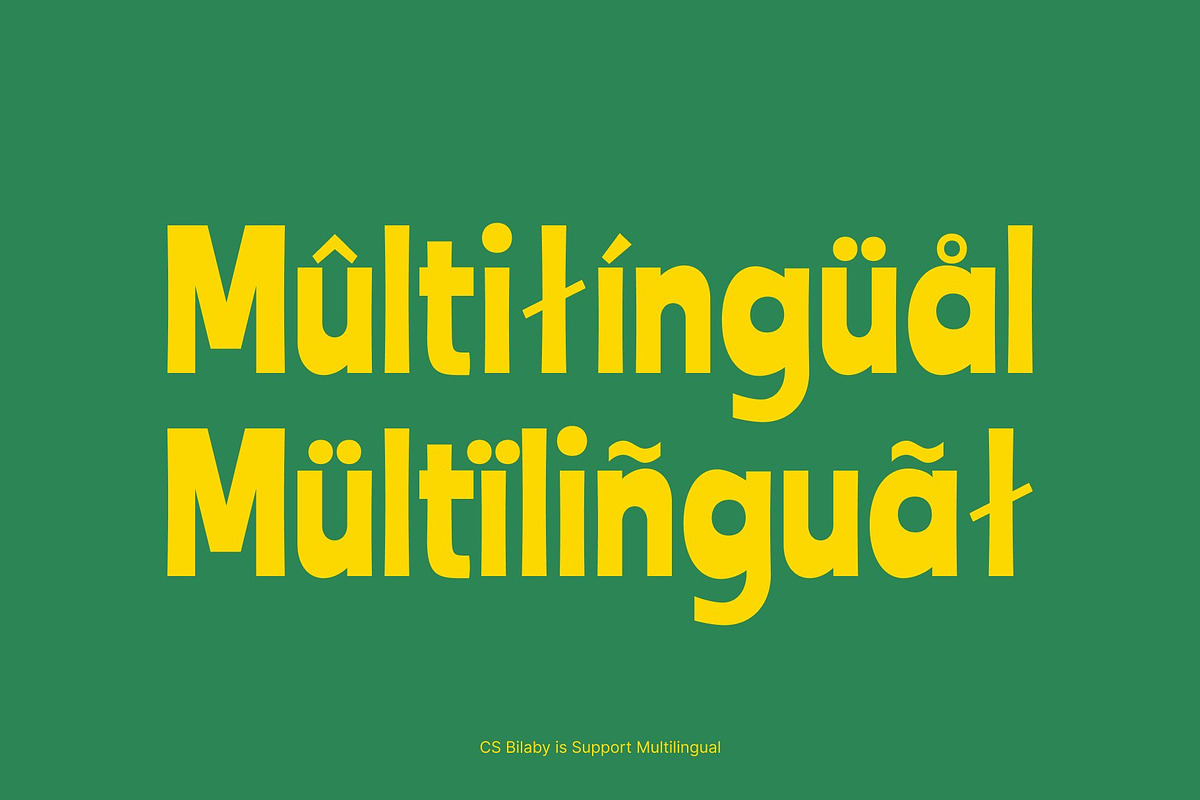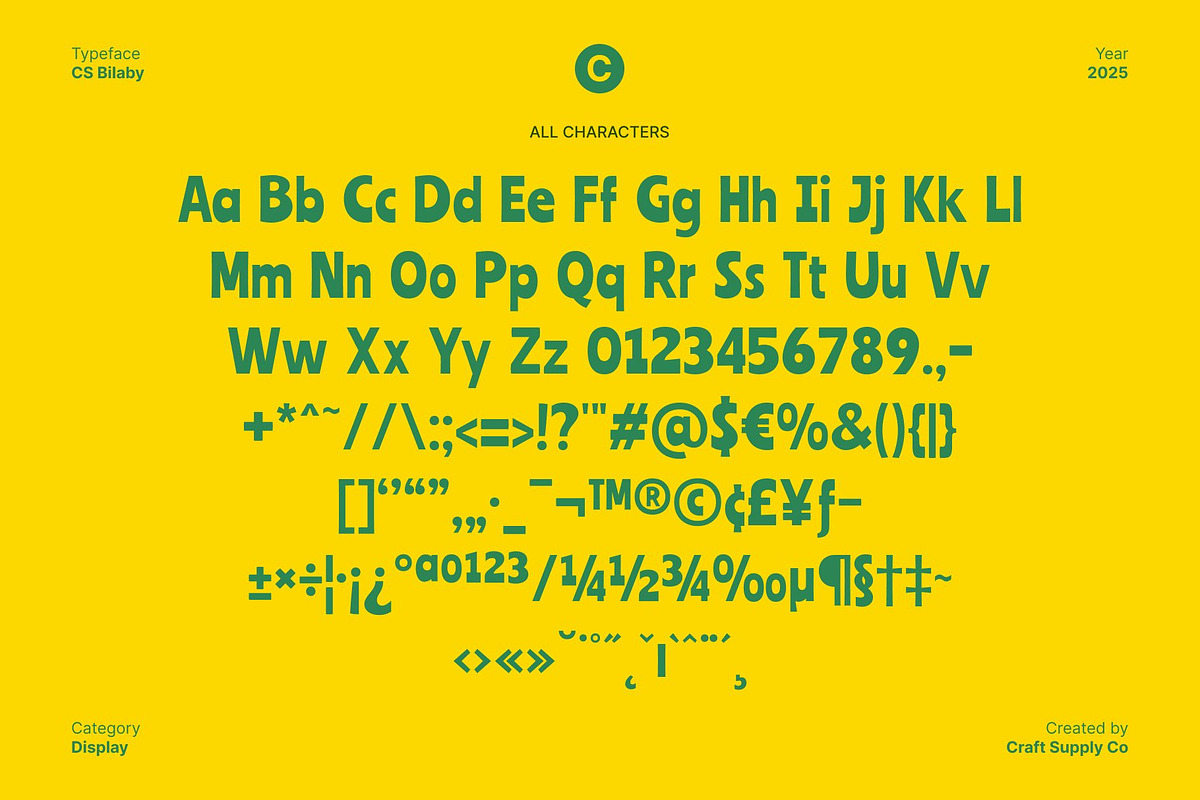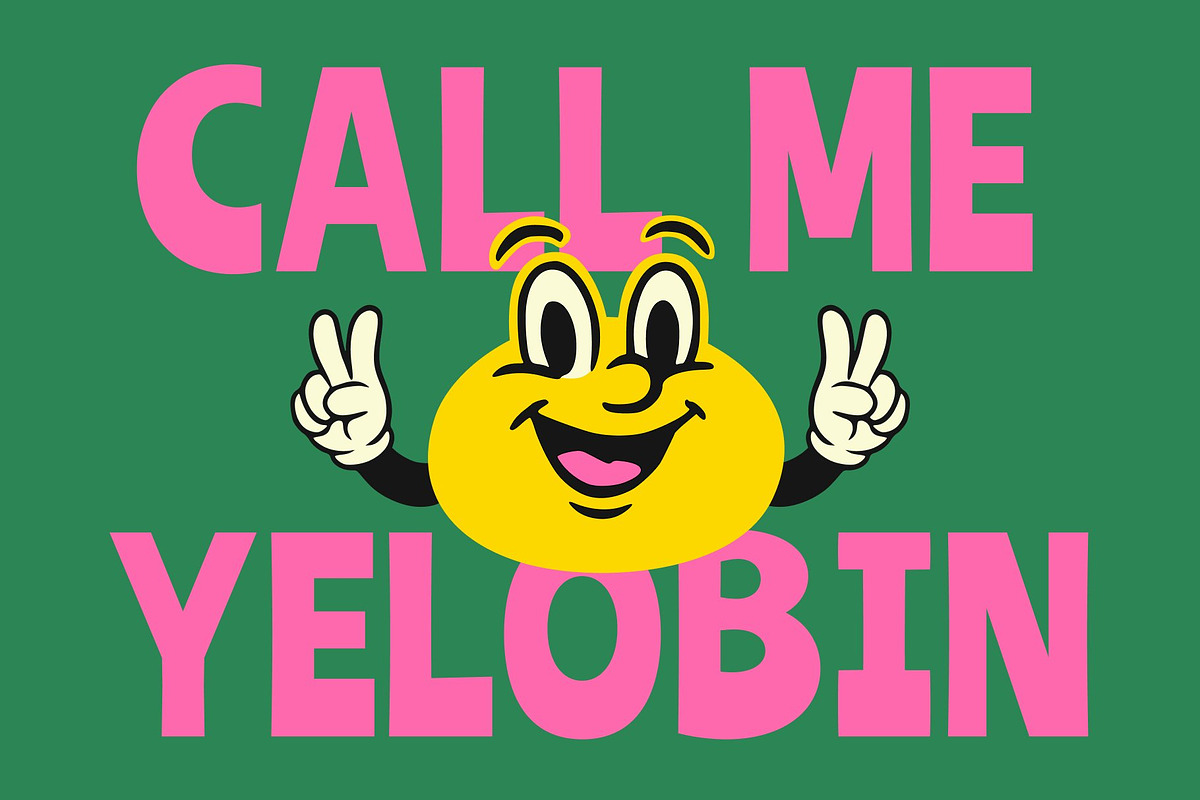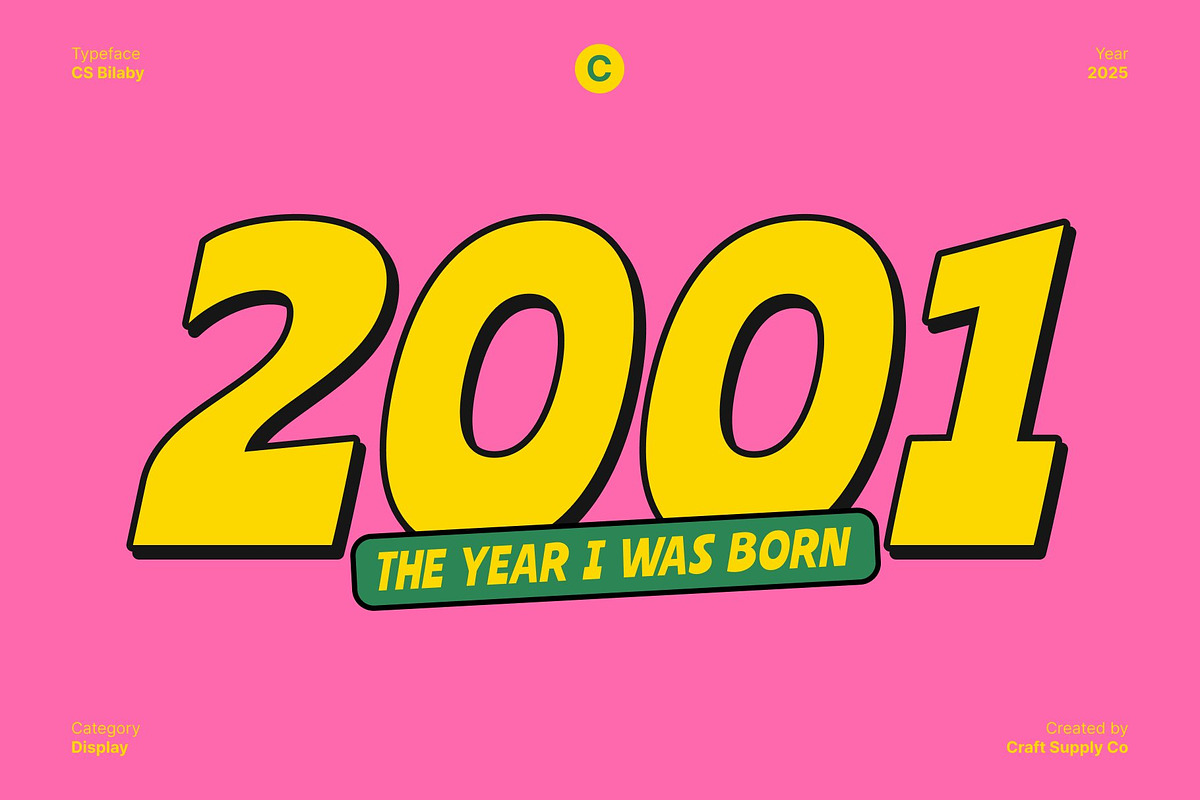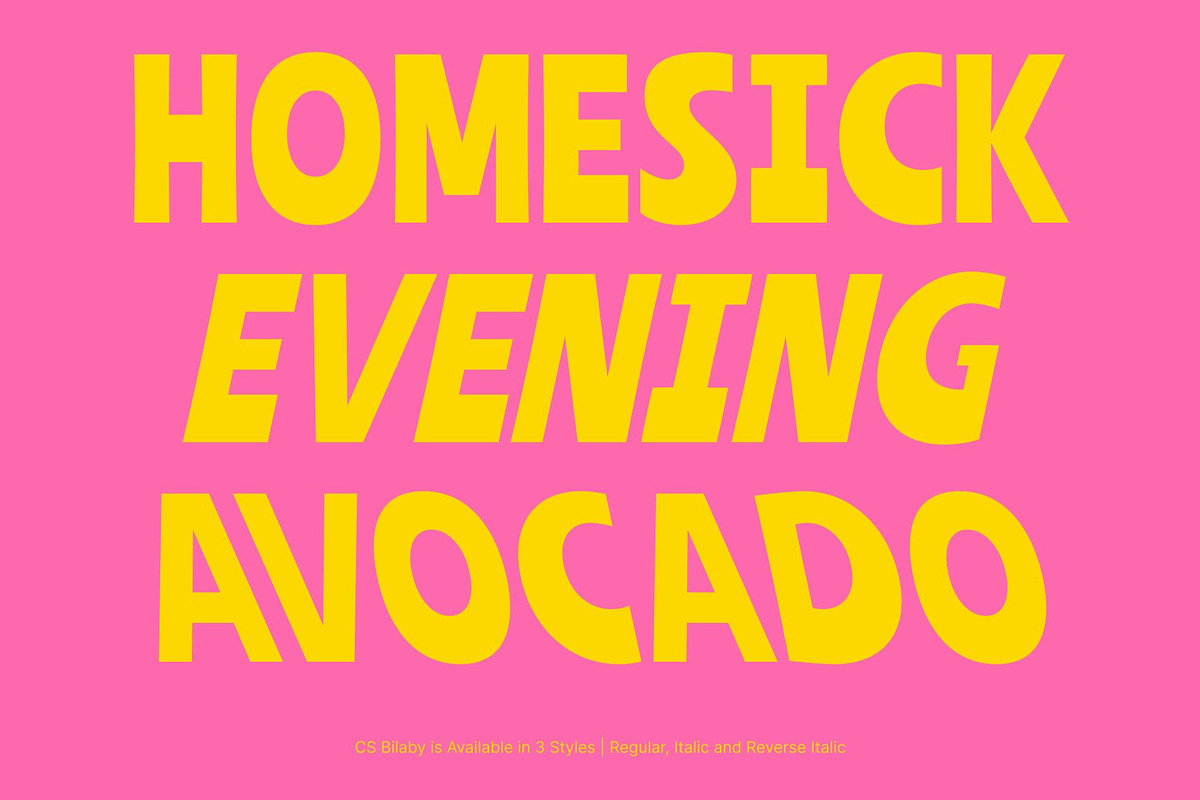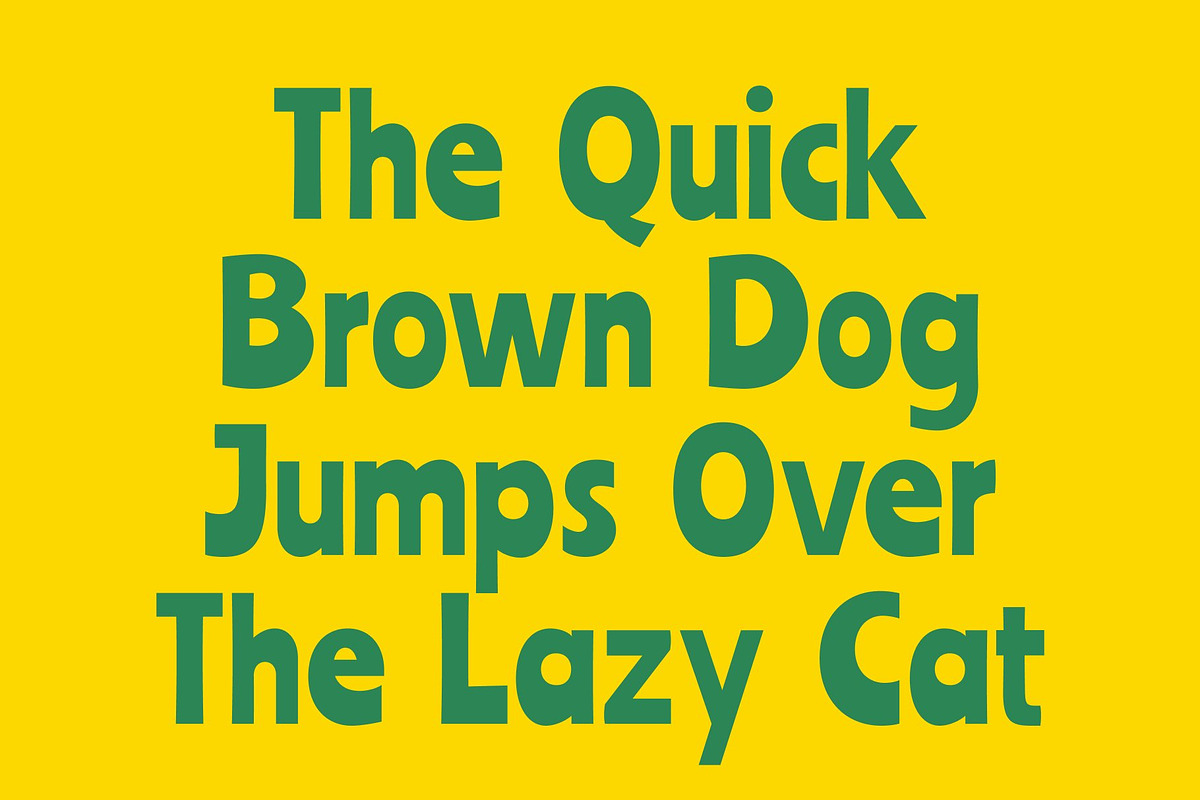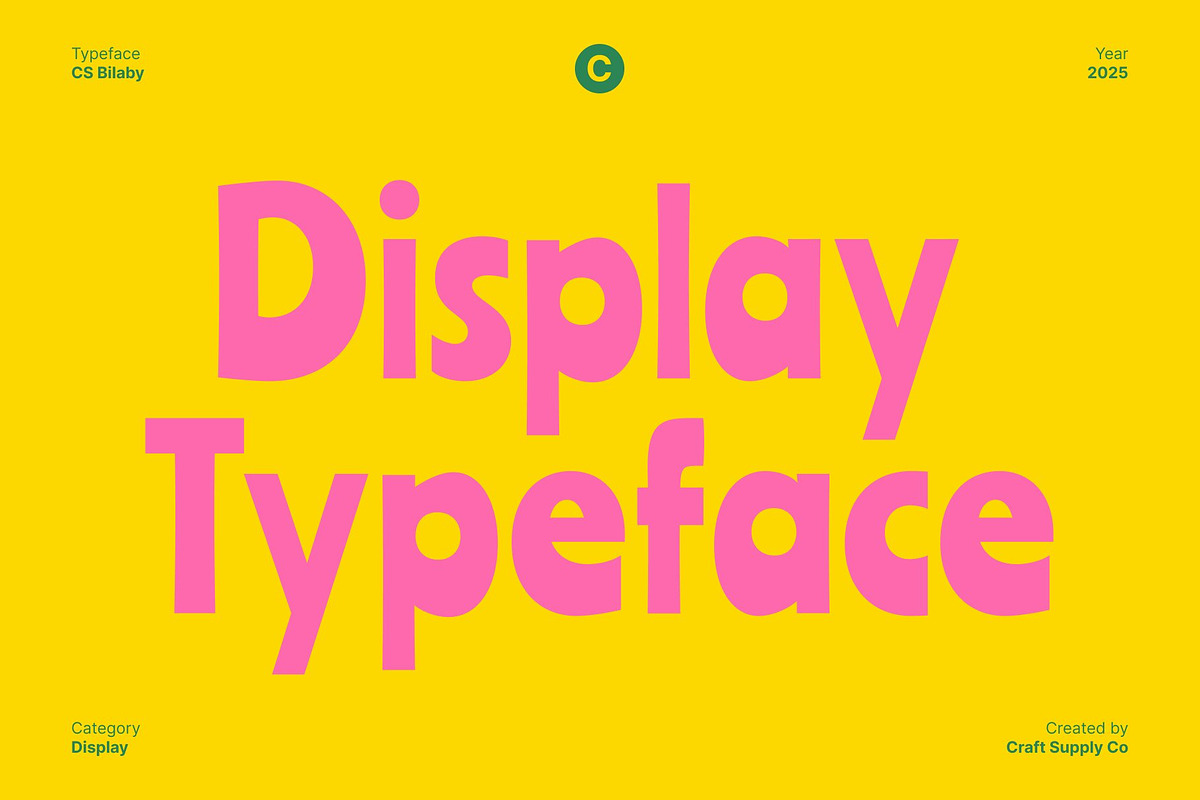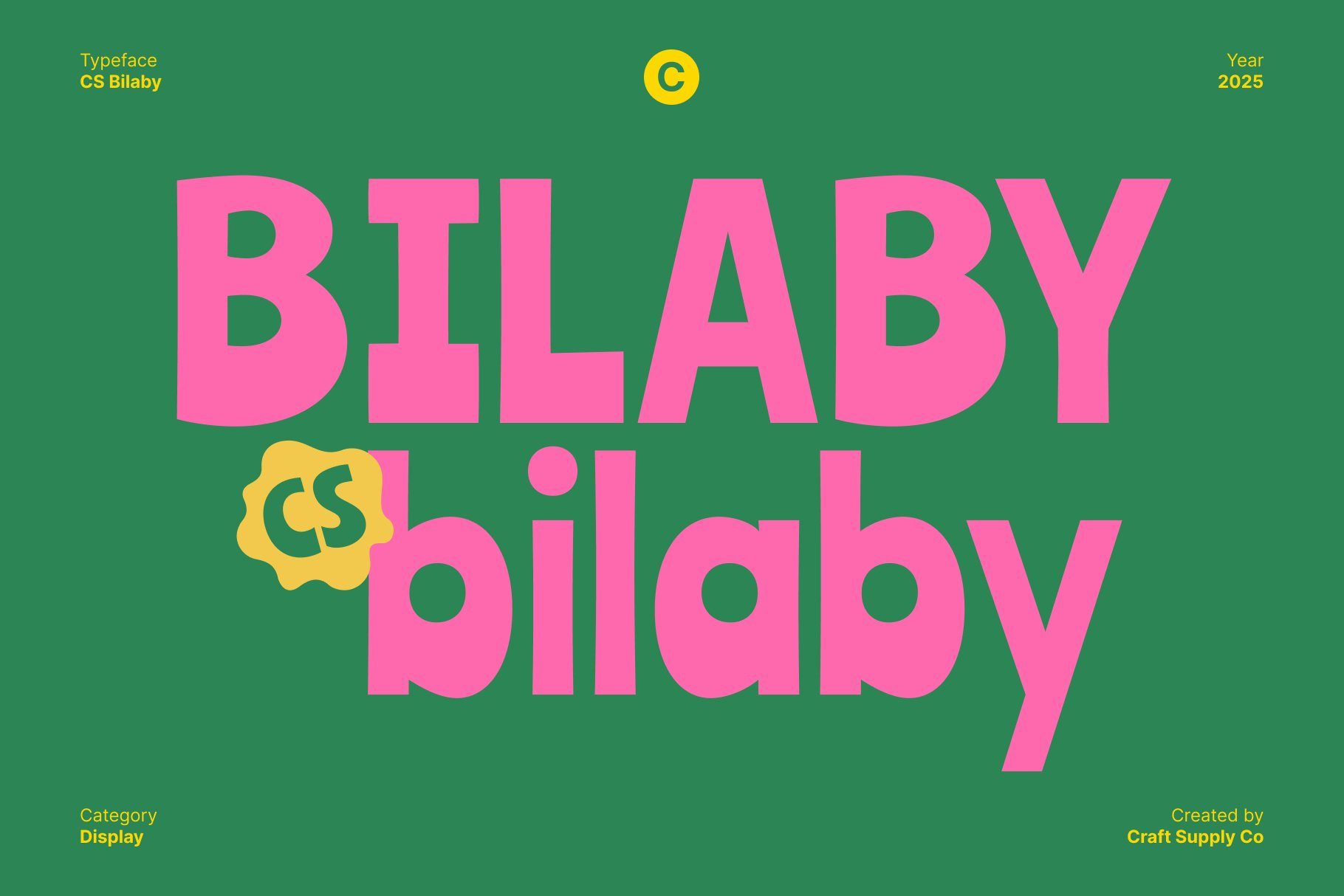
CS Bilaby – Playful Font
CS Bilaby – Playful Expression with Modern Charm
Modern Display Font with Handwritten Personality This is a modern display font that captures the charm of handwriting with a clean and contemporary twist. Its neat letterforms and organic flow bring a sense of warmth and authenticity, making every word feel approachable and full of life.
Expressive and Cheerful Design Blending modern precision with a playful spirit, this font radiates friendliness and energy. The quirky shapes and smooth curves give it a cheerful, expressive personality that instantly brightens any design.
Balanced Between Fun and Professional While its handwritten style adds character and spontaneity, this font maintains clarity and structure striking the perfect balance between casual creativity and professional appeal. This makes it highly versatile for both personal and commercial use.
Perfect for Fresh and Characterful Projects Ideal for titles, posters, branding, packaging, and other creative projects, this font delivers a fresh and full of character aesthetic. Whether you’re designing for youthful brands or modern visuals, this font adds an inviting and joyful touch to every layout.